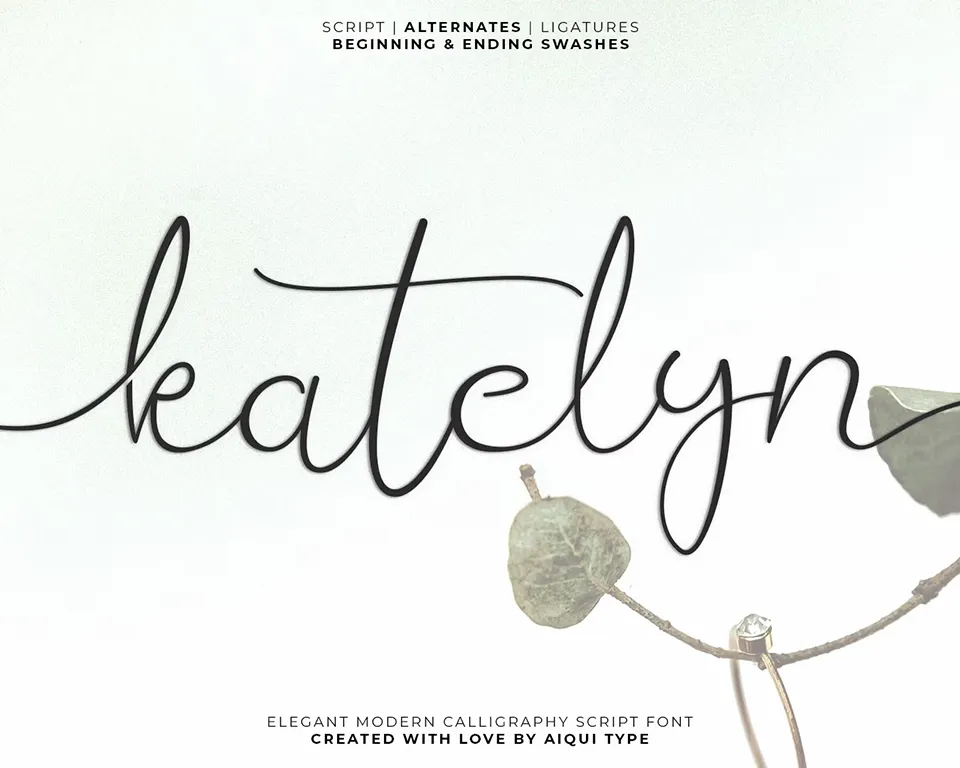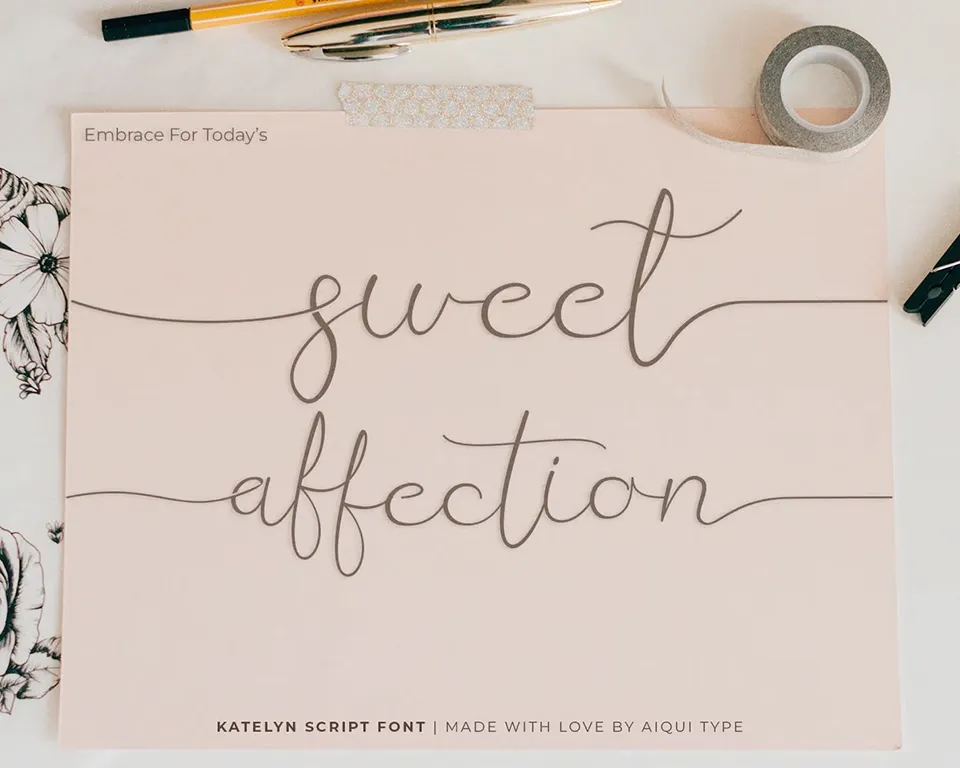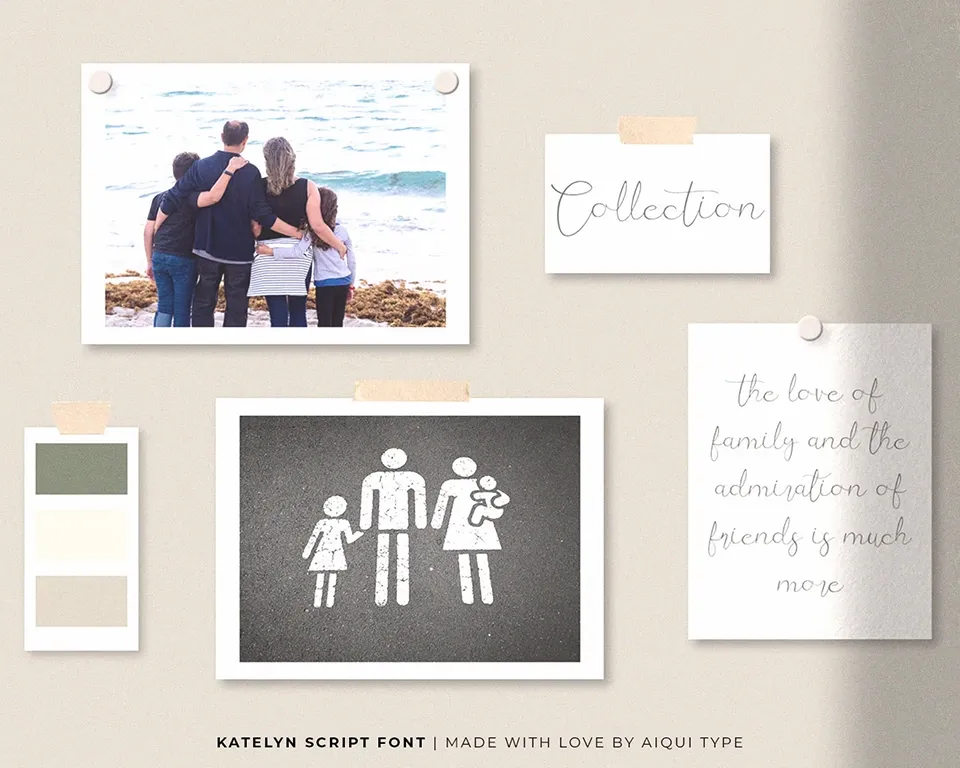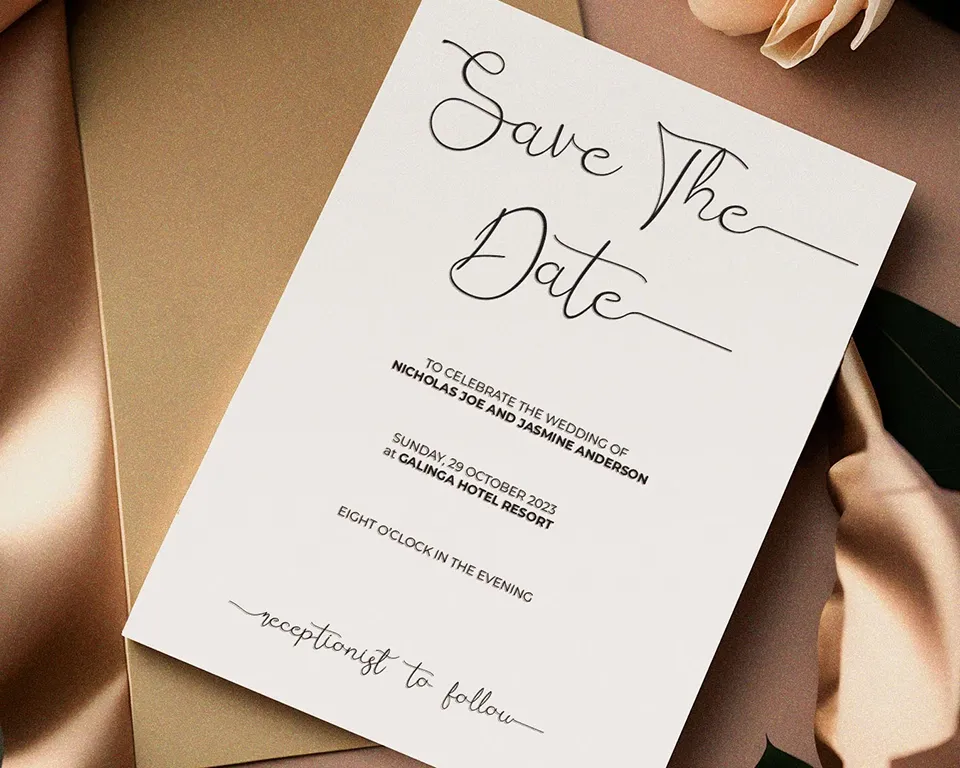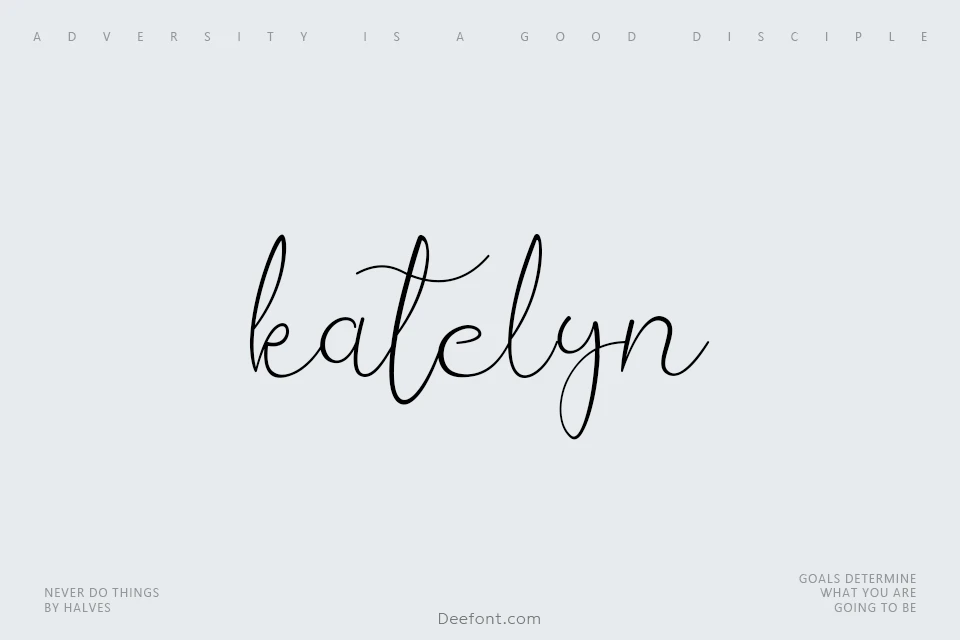
Katelyn Font
Katelyn Font is an elegant modern calligraphy script font that beautifully blends contemporary style with timeless charm. Its flowing strokes and graceful curves bring sophistication and a touch of modern allure to any creative project. Perfect for wedding invitations, branding, and more, Katelyn makes text come alive. Packed with features like alternates, ligatures, and beginning/ending swashes, it offers versatility and allows for truly personalized designs. With over 400 glyphs and multilingual support, Katelyn provides the tools needed to add a refined and captivating touch to your work.